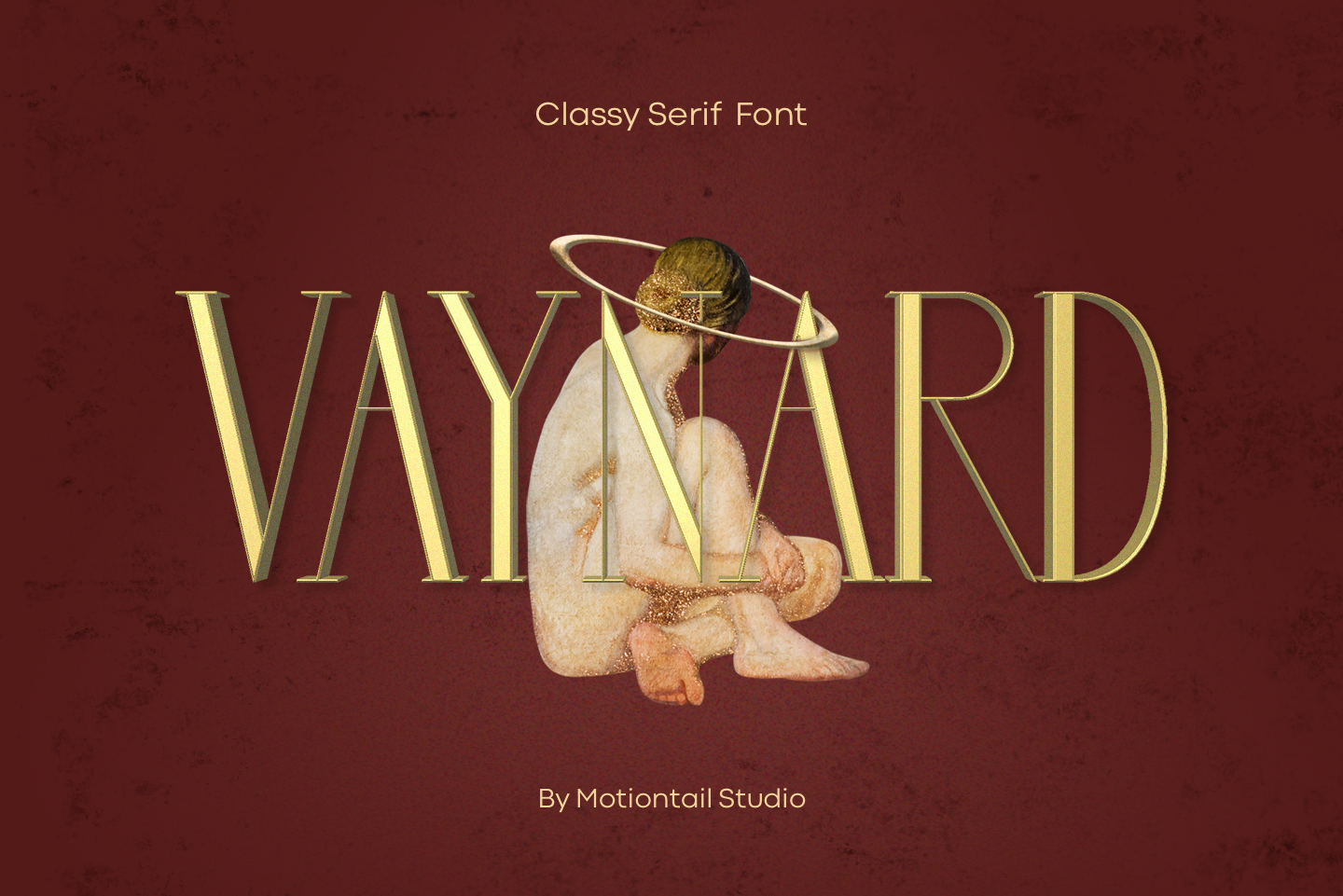
Vaynard Classy Font
Vaynard Mt is a modern casual typeface perfect use for headline, logo, magazine, and any editorial design needs also readable body text. Font Includes: Vaynard.otf Vaynard.ttf Vaynard.woff